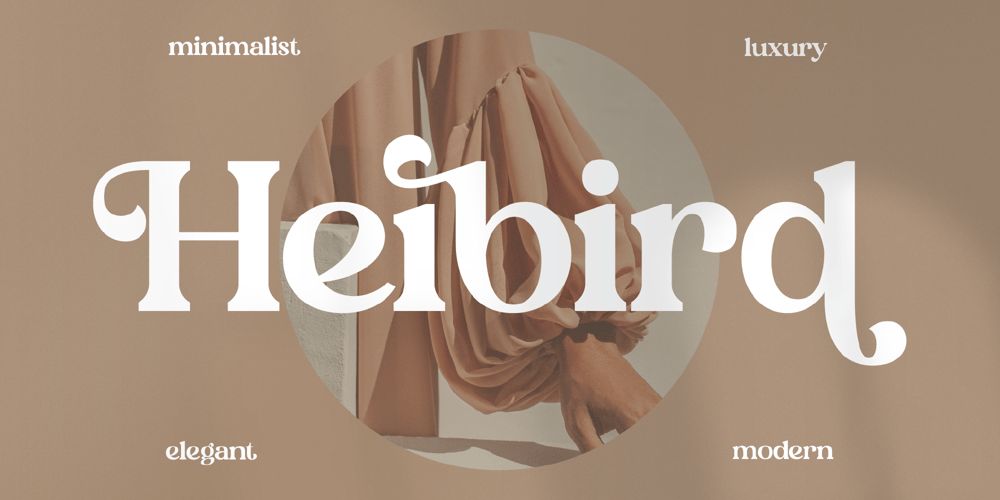
Heibird Font Family was designed by Heru Utama Putra and published by Letterena Studios. Heibird contains 2 styles and family package options. Heibird is a bold and elegant serif font. It looks gorgeous and stylish and it will most certainly enhance a large range of designs. This font is PUA encoded which means you can access all of the glyphs and swashes with ease!This typeface is perfect for an elegant & luxury logo, book or movie title design, fashion brand, magazine, clothes, lettering, quotes, and so much more.